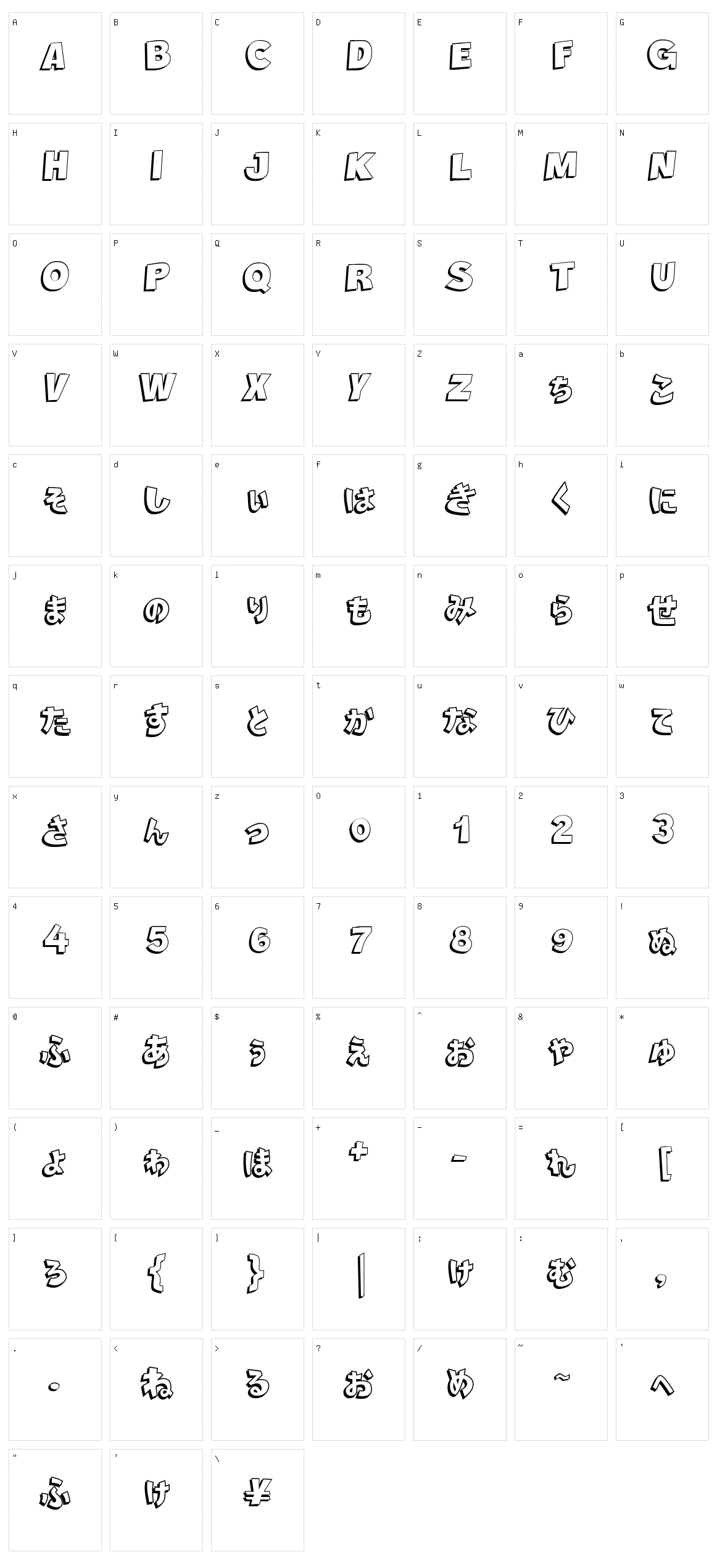
The free font Nipponika Cartoon is carefully designed by Galdino Otten Fonts, showcasing a thoughtful balance of creativity and usability and falls under the Cartoon font style. When you download the ZIP file, it contains only 802.03 KB of font files, making it lightweight and quick to download. Please review the license details below to understand permitted usage and distribution rights. If license information is not available, we recommend using this font for personal projects only or contacting the author directly for commercial usage permissions.